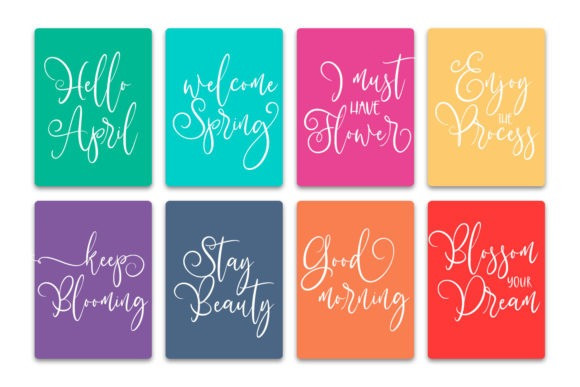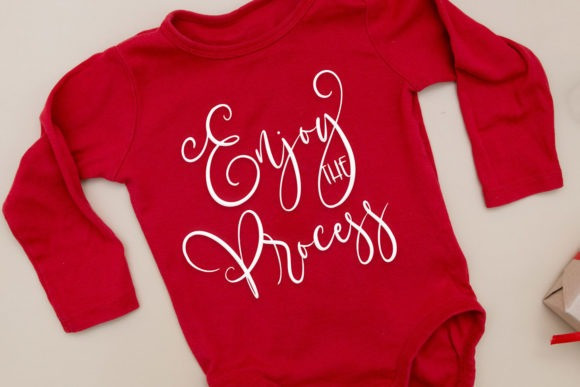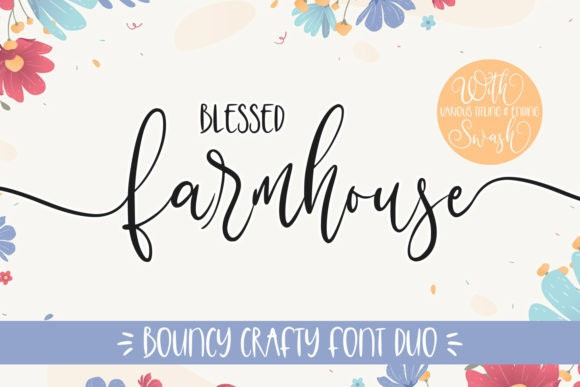
Blessed Farmhouse Font
Blessed Farmhouse Font is a bouncy craft font duo designed especially for crafters. The playful combination of styles makes it great for all of your craft projects such as branding, packaging, quotes, cards, banner, and much more!